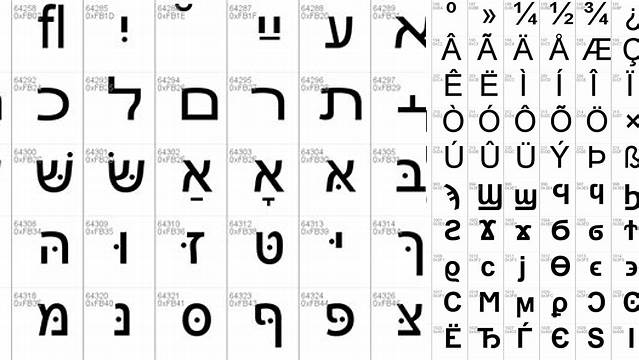
Are you looking for a versatile and legible font that supports both Hebrew and Latin characters? Look no further than the Arial Hebrew font family! This widely used typeface is a fantastic choice for a variety of design projects, from body text in documents and websites to headlines and display settings. In this comprehensive guide, we'll dive deep into the world of Arial Hebrew, exploring its history, design characteristics, usage, and where you can download it for free. So guys, let's jump right in!
What is the Arial Hebrew Font Family?
In the realm of typography, Arial Hebrew stands out as a sans-serif typeface meticulously crafted to cater to the nuances of the Hebrew script while seamlessly integrating with Latin characters. Its inception can be traced back to the collaborative efforts of Monotype Imaging and Microsoft, who aimed to create a font family that harmoniously blends the aesthetics of Arial, a contemporary sans-serif design, with the distinct features of Hebrew lettering. The result is a typeface that exudes a sense of modernity and clarity, making it an ideal choice for a wide array of applications. The Arial Hebrew font family distinguishes itself through its clean lines, uniform strokes, and balanced letterforms, ensuring optimal readability across diverse media and platforms. Whether employed in print publications, digital interfaces, or multimedia presentations, this typeface consistently delivers a professional and polished visual experience. Its versatility stems from its ability to adapt seamlessly to various design contexts, making it a valuable asset for designers and content creators alike. The font family comprises several weights and styles, offering designers a rich palette of options to convey different tones and messages effectively. From light and airy to bold and assertive, Arial Hebrew empowers designers to fine-tune their typography to suit the specific needs of each project. Furthermore, its compatibility with both Hebrew and Latin characters makes it a practical solution for multilingual projects, ensuring consistency and visual harmony across different scripts. In essence, Arial Hebrew embodies a harmonious fusion of form and function, catering to the demands of contemporary design while honoring the heritage of the Hebrew script. Its enduring popularity serves as a testament to its timeless appeal and its ability to meet the evolving needs of designers and readers alike.
History and Development of Arial Hebrew
The history of Arial Hebrew is intertwined with the evolution of digital typography and the growing need for fonts that support diverse languages and scripts. Developed jointly by Monotype Imaging and Microsoft, Arial Hebrew emerged as part of a larger effort to create a comprehensive suite of fonts for the Windows operating system. The primary goal was to provide users with a legible and aesthetically pleasing typeface that could handle both Latin and Hebrew characters seamlessly. This was a significant step forward, as many early digital fonts lacked proper support for non-Latin scripts, leading to inconsistencies and display issues. The development of Arial Hebrew involved a meticulous process of design and refinement. Typographic experts carefully crafted each character to ensure clarity, balance, and visual harmony. The design drew inspiration from the existing Arial font, a widely used sans-serif typeface known for its clean lines and readability. However, the Hebrew characters presented unique challenges, as they have a distinct structure and flow compared to Latin letters. The designers had to consider factors such as the directionality of Hebrew script (right-to-left) and the specific forms of Hebrew letters, which often feature intricate curves and serifs. The final result was a font family that successfully bridged the gap between Latin and Hebrew typography. Arial Hebrew retained the modern and approachable feel of Arial while incorporating the traditional elegance of Hebrew lettering. The font quickly gained popularity and became a standard choice for various applications, from word processing and web design to graphic design and publishing. Its widespread adoption cemented its place as a reliable and versatile typeface for both personal and professional use. Today, Arial Hebrew remains a staple in many design toolkits and continues to be used extensively across the globe. Its legacy is a testament to the importance of linguistic diversity in typography and the ongoing efforts to create fonts that are accessible and inclusive for all users.
Key Features and Design Characteristics
When it comes to typography, the Arial Hebrew font family boasts a multitude of features and design characteristics that make it a standout choice for various applications. Its clean and modern aesthetic, coupled with its exceptional legibility, sets it apart as a versatile typeface suitable for both print and digital media. One of the key highlights of Arial Hebrew is its sans-serif design, which lends it a contemporary and approachable feel. The absence of serifs, the small decorative strokes at the ends of letterforms, contributes to a streamlined and uncluttered appearance. This makes Arial Hebrew particularly well-suited for body text, where readability is paramount. The uniform strokes and balanced letterforms further enhance its legibility, ensuring that each character is easily distinguishable, even at smaller sizes. Another notable feature of Arial Hebrew is its harmonious integration of Hebrew and Latin characters. The font family is meticulously designed to ensure that both scripts complement each other seamlessly, creating a cohesive and visually appealing typographic composition. This makes it an ideal choice for multilingual projects that require both Hebrew and Latin text. In addition to its aesthetic qualities, Arial Hebrew also offers a wide range of weights and styles, providing designers with ample flexibility to express their creativity. From light and delicate to bold and assertive, the font family caters to diverse design needs. The availability of different styles, such as regular, italic, and bold, further expands its versatility, allowing designers to create visually dynamic and engaging layouts. The design characteristics of Arial Hebrew also contribute to its overall functionality. The font's clear and uncluttered letterforms make it easy to read on screens of various sizes and resolutions, ensuring a consistent user experience across devices. Its compatibility with various operating systems and software applications further enhances its practicality, making it a reliable choice for a wide range of projects. In summary, the Arial Hebrew font family combines aesthetic appeal with functional excellence. Its clean lines, balanced letterforms, and harmonious integration of Hebrew and Latin characters make it a versatile and legible typeface that is well-suited for diverse design applications.
Usage and Applications of Arial Hebrew
The versatility of the Arial Hebrew font family extends to a wide array of applications, making it a staple choice for designers, publishers, and content creators across various industries. Its clean and legible design makes it particularly well-suited for body text in documents, books, and articles, ensuring a comfortable reading experience for the audience. Whether it's a lengthy report, a captivating novel, or an informative blog post, Arial Hebrew maintains its clarity and readability, allowing the content to take center stage. In the realm of web design, Arial Hebrew shines as a reliable and visually appealing typeface for website content. Its compatibility with various browsers and operating systems ensures that the text renders consistently across different platforms, providing a seamless user experience for website visitors. The font's modern aesthetic and clear letterforms make it an excellent choice for headlines, subheadings, and body text, contributing to a professional and engaging website design. Beyond body text and website content, Arial Hebrew also finds its place in graphic design projects, such as posters, brochures, and advertisements. Its clean lines and balanced letterforms lend a contemporary and polished look to visual materials, making them stand out and capture the attention of the audience. The font's versatility allows it to adapt to different design styles, from minimalist and modern to more traditional and elegant. Moreover, Arial Hebrew's compatibility with both Hebrew and Latin characters makes it an invaluable asset for multilingual projects. It ensures consistency and visual harmony across different scripts, allowing designers to create unified and cohesive designs that cater to diverse audiences. Whether it's a bilingual website, a multilingual brochure, or a translated document, Arial Hebrew simplifies the process of working with multiple languages. The font's widespread availability and compatibility with various software applications further enhance its practicality. It is often pre-installed on computers and readily accessible in design software, making it a convenient choice for designers and content creators. In conclusion, the Arial Hebrew font family is a versatile and reliable typeface that excels in a wide range of applications. Its clean design, excellent legibility, and compatibility with both Hebrew and Latin characters make it a valuable asset for anyone working with typography.
Alternatives to Arial Hebrew
While Arial Hebrew is a fantastic font choice, it's always beneficial to explore alternatives to broaden your typographic palette. There are several other typefaces that share similar characteristics to Arial Hebrew, offering versatility and readability for both Hebrew and Latin scripts. One notable alternative is Helvetica. Helvetica is another widely used sans-serif typeface known for its clean lines and neutral appearance. Like Arial Hebrew, Helvetica is highly legible and works well in various design contexts. It's a great option if you're looking for a slightly different aesthetic while maintaining excellent readability. Another alternative to consider is David. David is a Hebrew typeface designed specifically for optimal readability in Hebrew text. It features clear and distinct letterforms that are easy to read, making it a popular choice for books, newspapers, and other long-form content. While David is primarily a Hebrew font, it often includes Latin characters as well, making it suitable for multilingual projects. If you're looking for a more modern and geometric sans-serif typeface, Avenir is worth exploring. Avenir offers a clean and contemporary look with a touch of elegance. Its geometric letterforms give it a distinct personality while maintaining excellent readability. Avenir is a versatile font that works well for both headlines and body text. For a slightly softer and more humanist sans-serif option, consider Frutiger. Frutiger is known for its warm and inviting appearance, making it a great choice for designs that require a friendly and approachable feel. Its clear letterforms and excellent legibility make it a practical option for a wide range of applications. When choosing an alternative to Arial Hebrew, it's essential to consider the specific needs of your project. Think about the overall tone and style you want to convey, as well as the intended use of the font. Experimenting with different typefaces can help you find the perfect match for your design. In conclusion, while Arial Hebrew is a versatile and reliable typeface, exploring alternatives can expand your creative options and help you achieve the desired look and feel for your projects. Typefaces like Helvetica, David, Avenir, and Frutiger offer similar qualities with subtle differences that can make a significant impact on your design.
Conclusion: The Enduring Appeal of Arial Hebrew
In conclusion guys, the Arial Hebrew font family has proven its enduring appeal and versatility in the world of typography. Its seamless blend of Hebrew and Latin characters, combined with its clean and legible design, makes it a valuable asset for designers, publishers, and content creators alike. Throughout this comprehensive guide, we've explored the history, features, usage, and alternatives of Arial Hebrew, highlighting its significance in various applications. From its origins as a collaborative effort between Monotype Imaging and Microsoft to its widespread adoption across diverse platforms, Arial Hebrew has consistently demonstrated its ability to meet the demands of contemporary design. Its clean lines, balanced letterforms, and harmonious integration of Hebrew and Latin scripts make it a reliable choice for body text, headlines, web content, and graphic design projects. The font's versatility extends to multilingual applications, ensuring consistency and visual harmony across different languages. Whether it's a bilingual website, a translated document, or a multilingual marketing campaign, Arial Hebrew simplifies the process of working with multiple scripts. Its compatibility with various operating systems, software applications, and web browsers further enhances its practicality, making it a convenient choice for designers and content creators. While Arial Hebrew remains a popular choice, exploring alternatives can broaden your typographic palette and help you achieve specific design goals. Typefaces like Helvetica, David, Avenir, and Frutiger offer similar qualities with subtle differences that can add a unique touch to your projects. Ultimately, the selection of a typeface depends on the specific needs and aesthetic preferences of each project. However, Arial Hebrew's enduring appeal and versatility make it a valuable addition to any typographic toolkit. Its clean design, excellent legibility, and compatibility with both Hebrew and Latin characters ensure its relevance in the ever-evolving world of typography. As we continue to embrace linguistic diversity and strive for clear communication, Arial Hebrew will undoubtedly remain a staple choice for designers and content creators worldwide. So, whether you're crafting a website, designing a brochure, or writing a document, remember the versatility and timeless appeal of the Arial Hebrew font family. It's a typeface that truly stands the test of time.